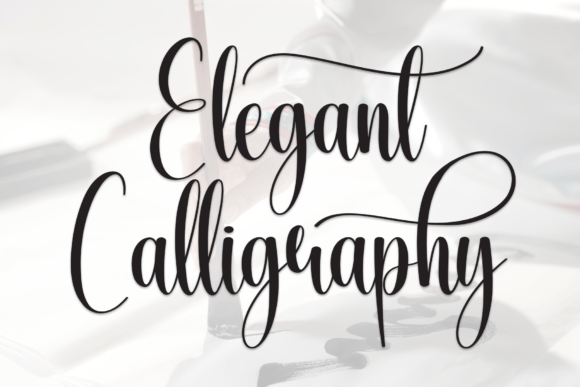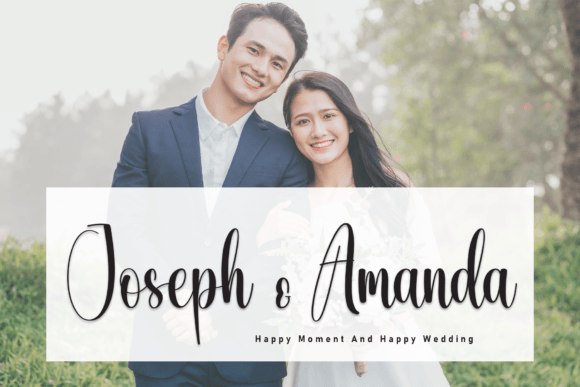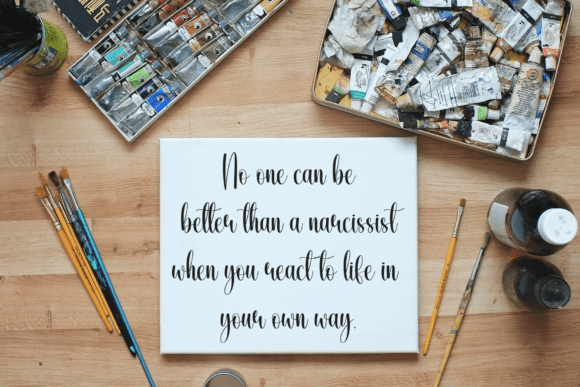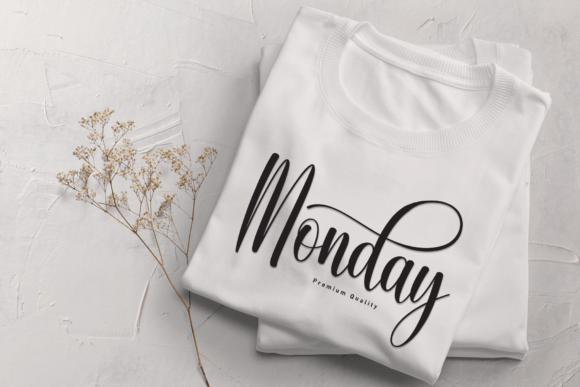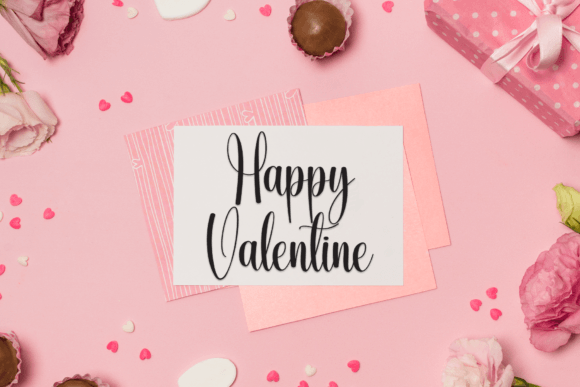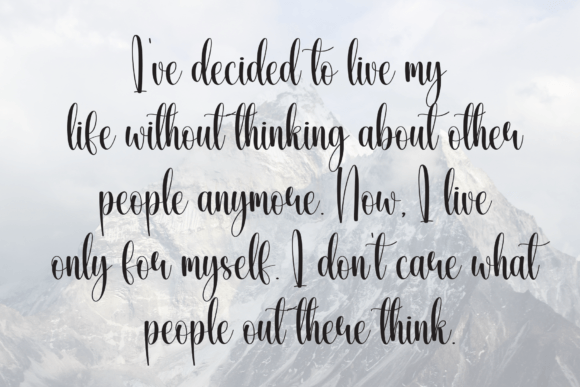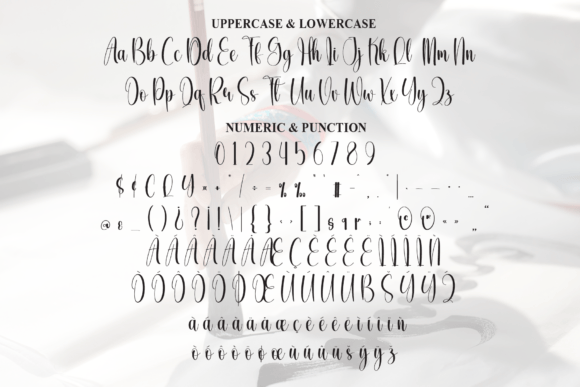
Unleashing the Art of Elegant Lettering
As a designer, have you ever found yourself in the midst of a creative brainstorming session, desperately seeking the perfect font to bring your vision to life? Perhaps you’re working on a high-end wedding invitation, a luxury brand’s marketing campaign, or a beautifully crafted book cover. Whatever the project, one thing is certain: the right font can make all the difference.
That’s where Elegant Calligraphy Font comes in – a stunning, handwritten font that exudes confidence and artistic flair. With its dynamic letterforms and bold strokes, it’s the perfect choice for designers seeking a modern, yet elegant aesthetic. By incorporating Elegant Calligraphy Font into your designs, you can add a touch of sophistication and expressiveness that’s sure to captivate your audience.
Elegant Calligraphy Font Features
- Font Family: Elegant Calligraphy Font offers 6 unique font styles, each with its own distinctive flair, allowing users to choose the perfect fit for their design needs.
- Unique Characteristics: Features intricate, hand-drawn lettering with subtle flourishes and elegant curves, adding a touch of sophistication and refinement to any design.
- Language Support: Supports a wide range of languages, including Latin, Greek, and Cyrillic scripts, making it an ideal choice for multilingual designs.
Elegant Calligraphy Font Review
I recently had the chance to work with the Elegant Calligraphy Font, and I must say it’s a beautiful addition to any design project. ✨ The font’s elegant and refined feel is perfect for creating a sophisticated look and feel. It’s ideal for wedding invitations, luxury brands, and any project where you want to convey a sense of high-end quality.
The Elegant Calligraphy Font has a wide range of styles, from classic to modern, giving you a lot of flexibility when it comes to choosing the right look for your project. The font’s high-quality vector graphics make it easy to scale and manipulate, without compromising on the details.
Here are some of the things that work well with the Elegant Calligraphy Font:
- Beautiful, elegant feel that’s perfect for high-end projects
- Wide range of styles to choose from
- High-quality vector graphics for easy scaling and manipulation
- Perfect for wedding invitations, luxury brands, and other high-end projects
- May not be suitable for projects that require a more modern or edgy feel
- Not as versatile as some other fonts, may not work well for body text
Overall, the Elegant Calligraphy Font is a beautiful and refined addition to any design project. While it may have some limitations, it’s perfect for high-end projects where you want to convey a sense of sophistication and elegance. ⚠️ Just be sure to consider the costs and limitations before making a purchase.
Use the Elegant Calligraphy Font to create elegant invitations, wedding stationery, or business cards. Experiment with different font sizes, colors, and styles to create a unique look.
The Elegant Calligraphy Font is perfect for:
- Event invitations and programs
- Personalized gifts and certificates
Q: Can I customize the Elegant Calligraphy Font to fit my specific design needs?
Yes, the Elegant Calligraphy Font is highly customizable. You can adjust the font size, color, and spacing to suit your design requirements. Additionally, the font’s OpenType features allow for advanced typographic controls, such as ligatures, swashes, and stylistic sets.